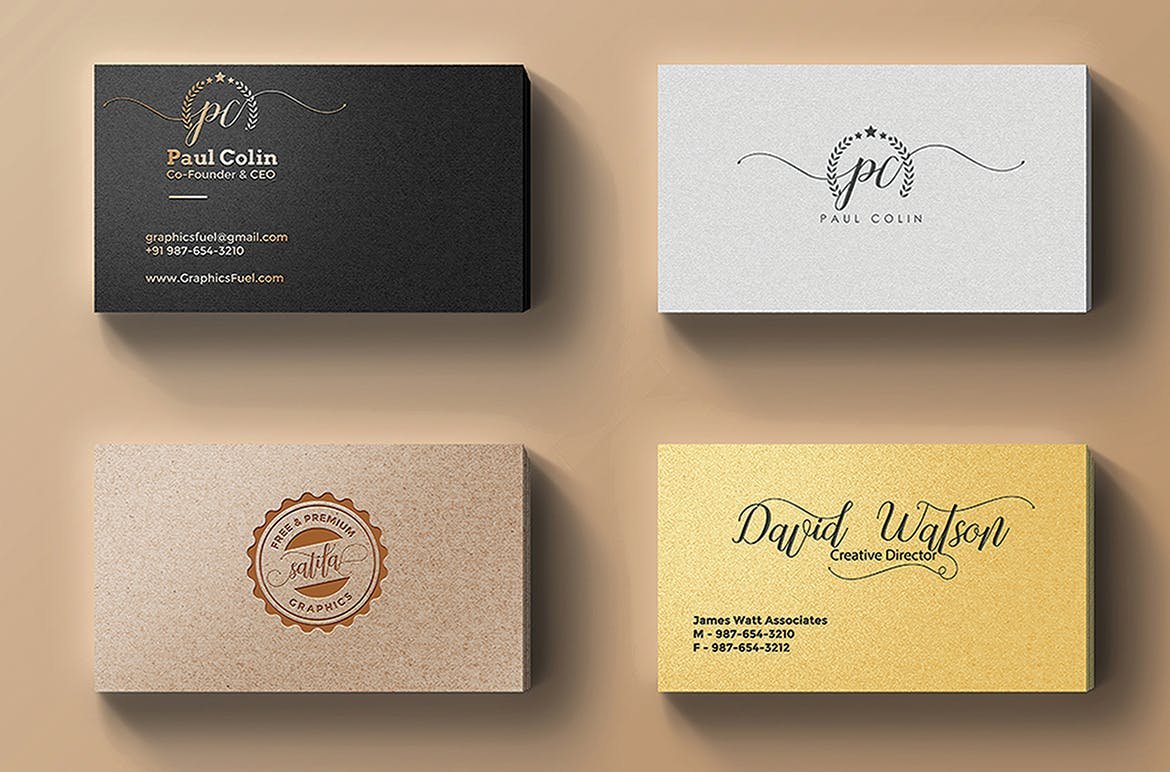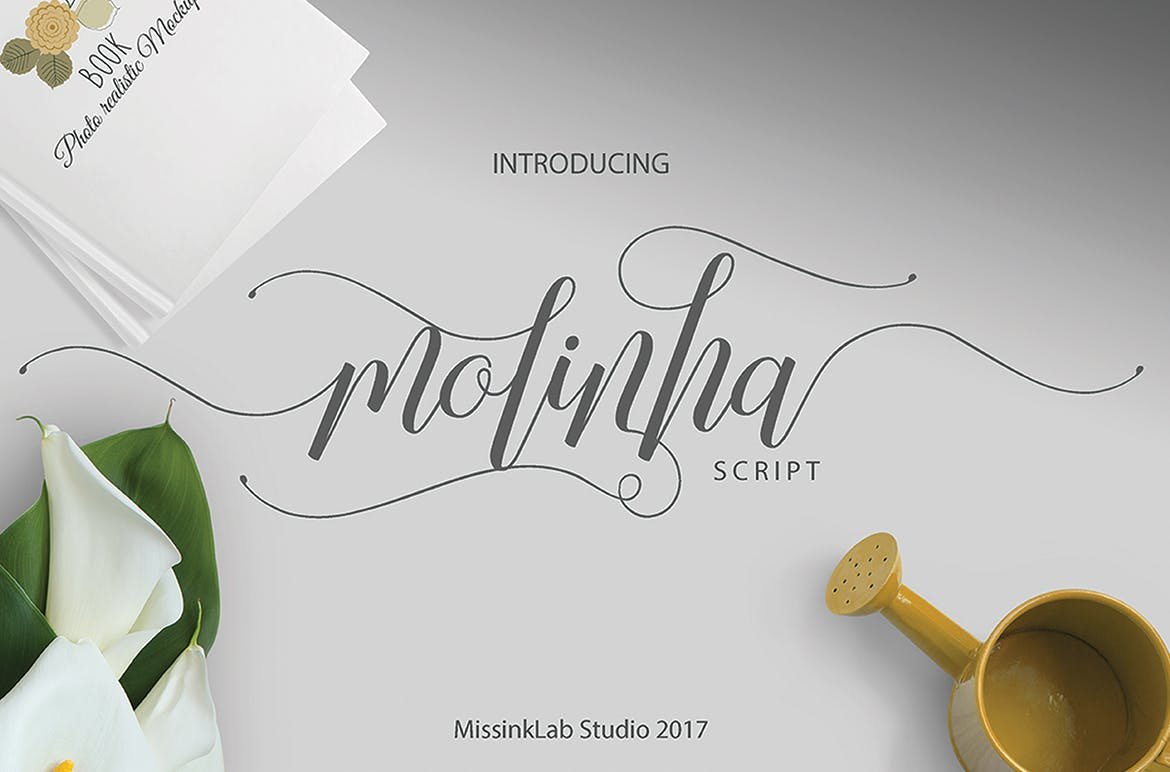
Molinha Script Font
Molinha is a hand calligraphy, simple, smooth, modern and clasic, which was created to meet the needs of your next design project. Molinha, Can used for various purposes. such as the title, signature, logo, correspondence, wedding invitations, letterhead, signage, labels, newsletters, posters, badges, etc